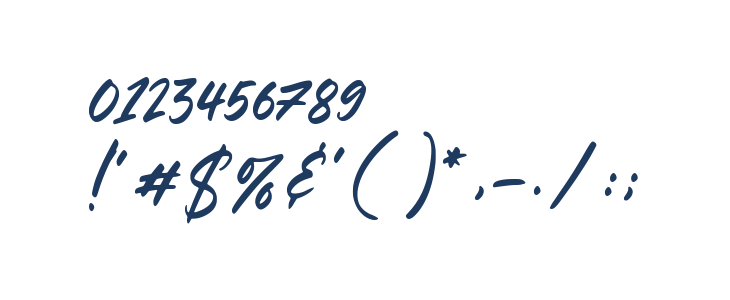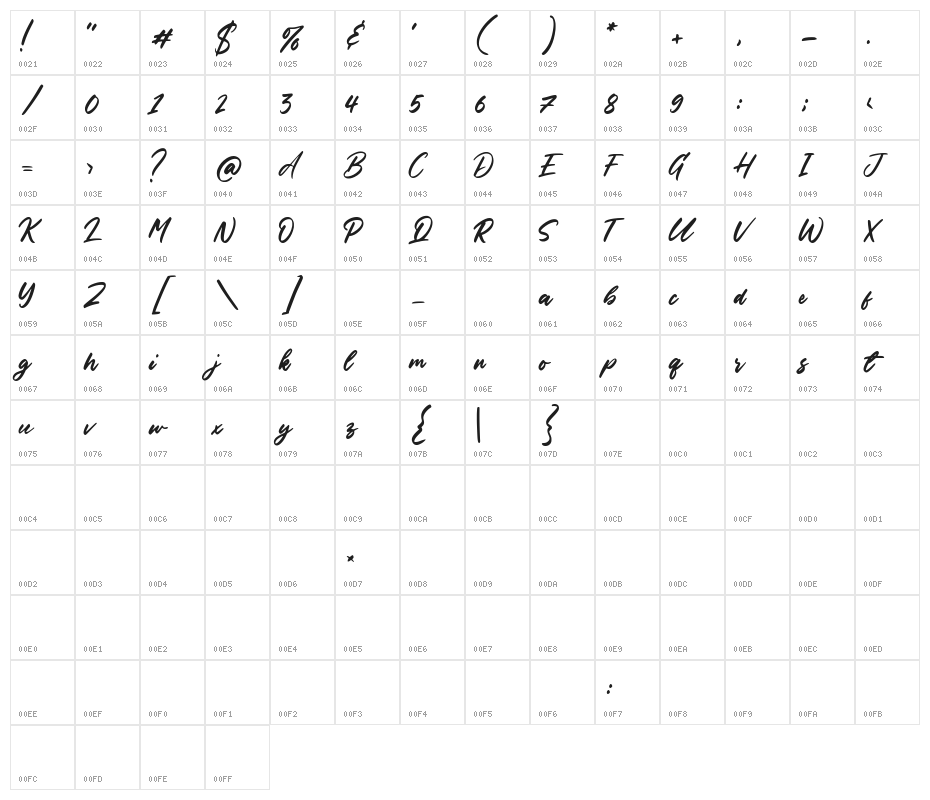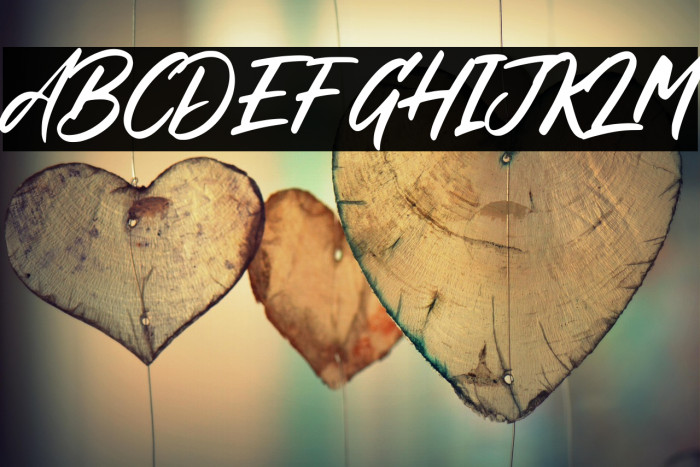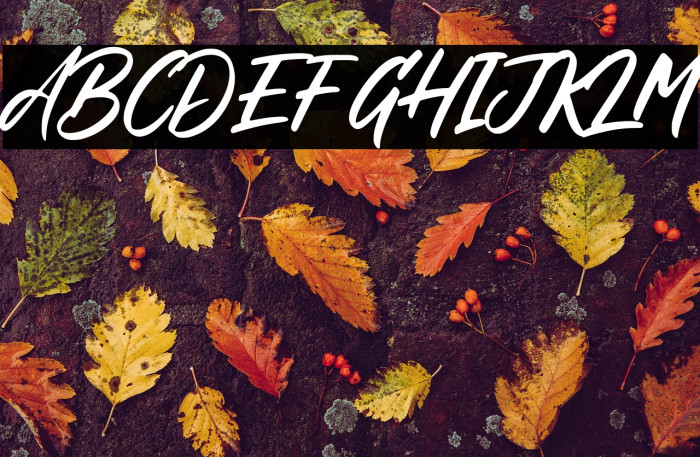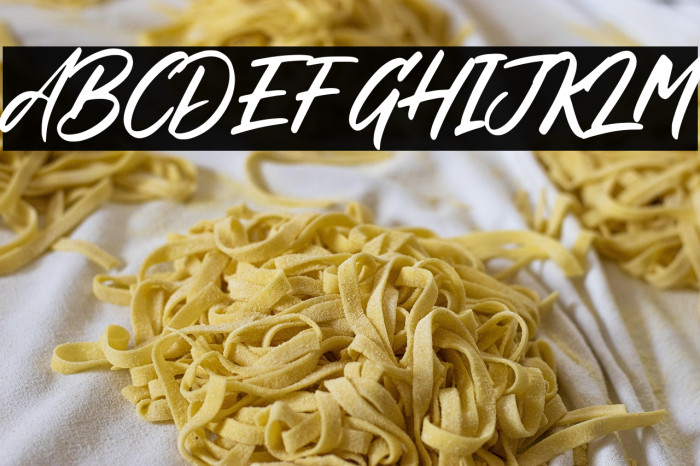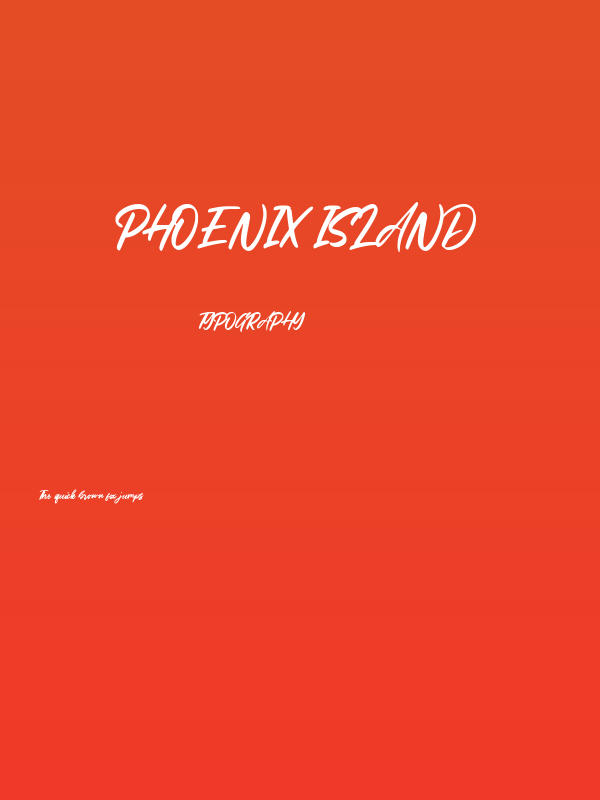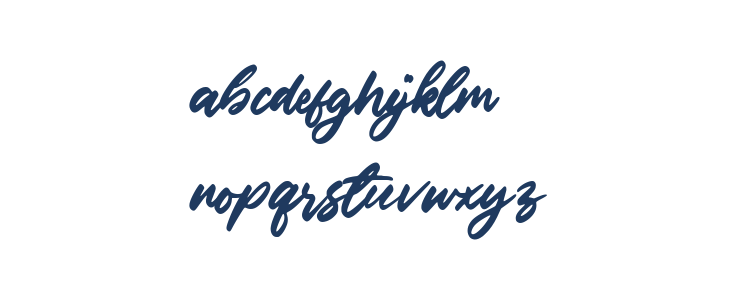
Phoenix Island Font
Phoenix Island Description
This font exudes a dynamic and energetic style, characterized by its fluid, cursive script that mimics the natural flow of handwriting. The letters are connected in a seamless manner, giving it a cohesive and elegant appearance. The strokes are bold and confident, with a slight slant that adds to its lively and informal feel. The uppercase letters are distinct and prominent, while the lowercase letters maintain a consistent rhythm and flow. The numerals are clear and easy to read, matching the overall aesthetic of the font. Special characters are included, maintaining the same stylistic features, making it versatile for various uses.